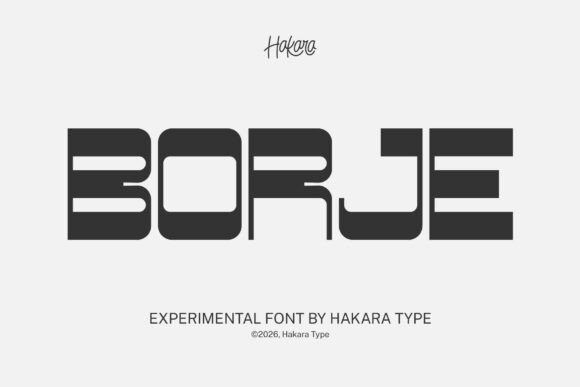
The Futuristic Edge: How Borje Font Can Elevate Your Designs
I still remember the frustration of working on a futuristic gaming poster, desperately searching for a font that could match the project’s bold and edgy vibe. The usual suspects just didn’t cut it – they were either too bland or too over-the-top. That’s when I stumbled upon Borje, a futuristic experimental display font that instantly caught my attention. With its bold geometric shapes and modular structure, Borje brings a strong and distinctive look to any creative project.
First Impressions: What I Love About Borje
Here’s what makes Borje stand out:
- ✨ Unique cut-out details: Borje’s design is characterized by its distinctive cut-out details, giving it a mechanical and futuristic feel.
- ✅ Modular structure: The font’s modular design makes it highly versatile and perfect for creating eye-catching visuals.
- 🔥 Sci-fi aesthetics: Borje’s inspiration from sci-fi aesthetics and modern technology gives it a bold and edgy vibe.
- 💻 Perfect for digital content: Borje’s futuristic style makes it ideal for digital content, such as video game designs, tech blogs, or futuristic-themed websites.
Honest Review: The Not-So-Perfect Aspects
While Borje is an excellent font, it’s not without its quirks:
- 🤔 Limited use cases: Due to its bold and futuristic design, Borje might not be suitable for projects requiring a more subtle or elegant font.
- ⚠️ Legibility at small sizes: Borje’s unique design can make it challenging to read at small font sizes, so it’s best used at larger sizes for maximum impact.
The Story Behind Borje
Borje was designed with the goal of creating a font that embodies the spirit of modern technology and sci-fi aesthetics. The designer aimed to create a font that would be both bold and distinctive, with a unique cut-out design that sets it apart from other fonts.
| Font Name | Borje Font |
| Author | Hakara Type |
| What inspired the design of Borje? | Borje was inspired by sci-fi aesthetics and modern technology, with a focus on creating a bold and distinctive font. |
| What type of projects is Borje best suited for? | Borje is perfect for projects that require a strong and futuristic look, such as gaming designs, tech blogs, or futuristic-themed websites. |
| Is Borje available in different weights and styles? | Borje is available in a single weight, but its modular design allows for a range of creative possibilities. |